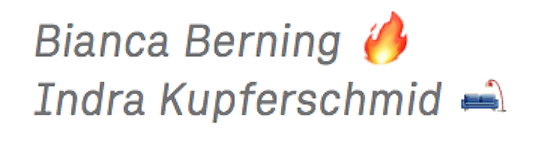
Slanting emoji
Dear Bianca,
Why do some emoji slant with the text when you italicize it while others do not?
Dear Indra,
Why would you italicize emoji to begin with? To convey speed? To emphasise emotion? To not have them clash with text?
In any case, I think it’s down to OS and application you use. A quick test showed that faux italic emoji are generally available and I couldn’t find exceptions to the rule apart from Slack’s menu which gladly slants fire but not couches for no apparent reason.
As we all know faux styles happen because the chosen variation of a font is not (or not yet) available. In this case, there’s simply no italic version of your emoji (type)face. Instead of falling back onto a different font family in which this style exists (not that there is one), it pretends there is an italic by brute slanting the glyphs. The other option would be to just keep displaying the upright emoji.
Curiously, faux bold didn’t work in all my testing environments and resulted in very odd behaviour in some. Tells you a lot about faux bold algorithms.
I’m guessing it’s only a matter of time until we see the first true italic and bold emoji fonts. For better or for worse.
The future is bright.
Edit: Emoji in Slack menu slant if they are part of the name, they don’t slant if they are the status